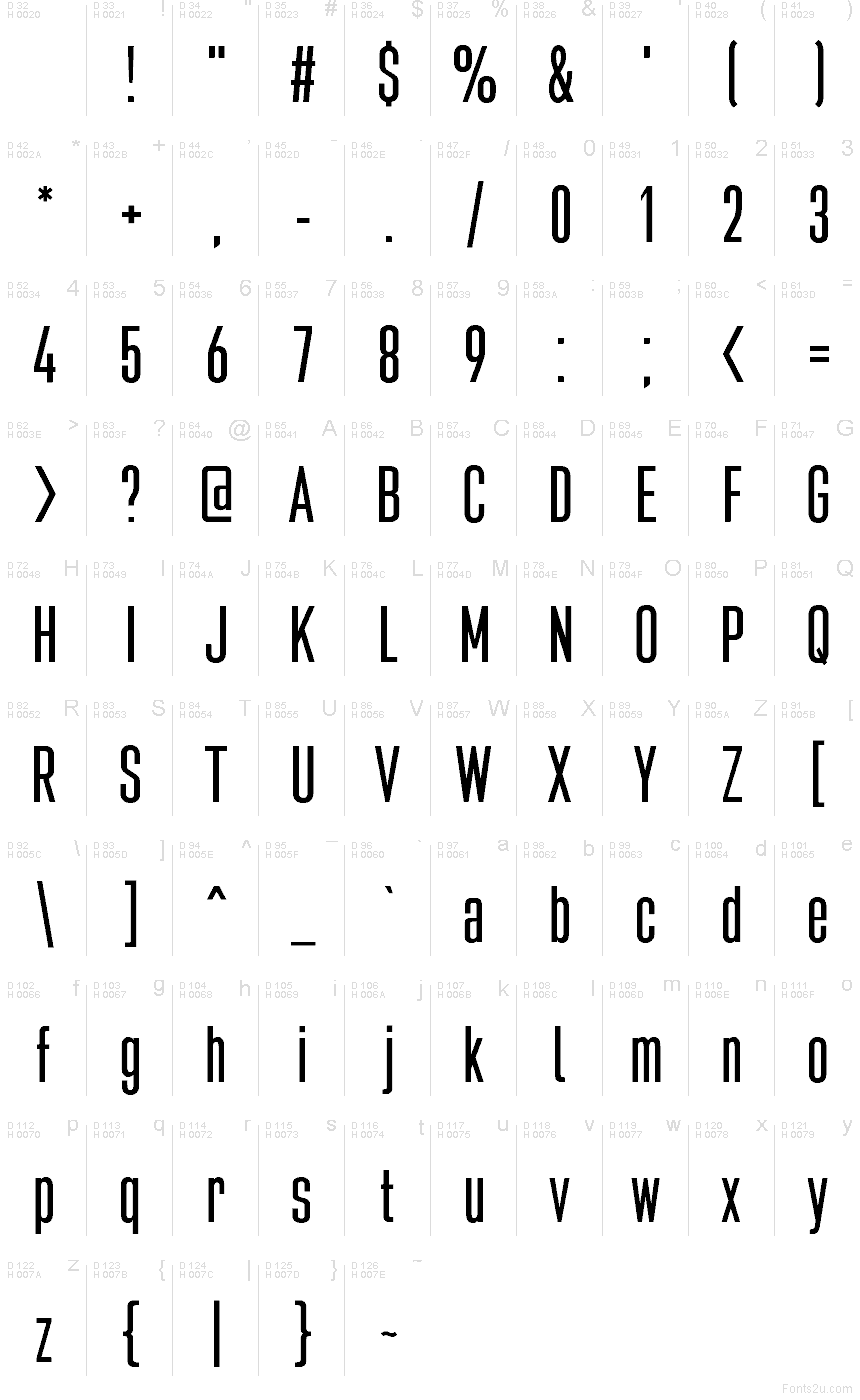
Bilgen Demo Bold
Bilgen Bold font by Bykineks is a free condensed sans serif typeface that turns tight spaces into a strength. Its tall, narrow letters, smooth curves, and even stroke weight stack words neatly without feeling cramped, giving headlines a confident, modern presence. As part of the Bilgen family, this bold weight hits a sweet spot between sleek minimalism and approachable warmth.
Using Bilgen Bold, you can squeeze strong messaging into slim layouts for posters, banners, packaging, app headers, magazine covers, and social media graphics. The clean rhythm keeps text legible at smaller sizes, while the sturdy shapes stay striking when scaled huge. This free font pairs especially well with a light, wide sans or serif for body copy—set Bilgen Bold for titles and let the companion handle longer reading.